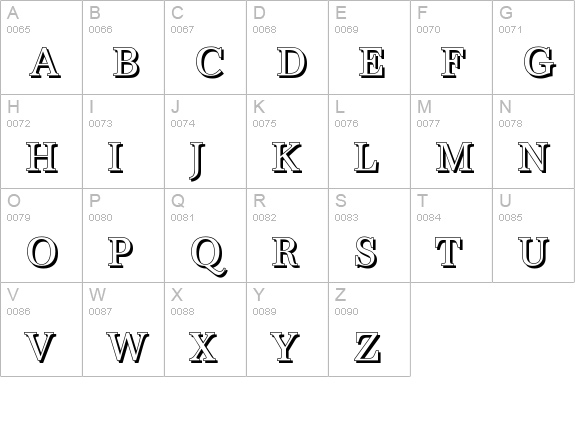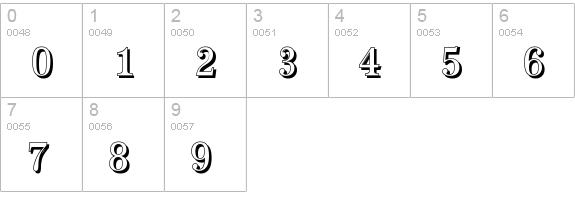
AntiquaSh-Cd-Regular is the standard, neutral variant in the AntiquaSh typeface family \xE2\x80\x94 well suited to general body text, paragraphs, and standard typographic work.
AntiquaSh-Cd-Regular is a classic and elegant font that exudes sophistication and timelessness. With its clean lines and balanced proportions, this font is perfect for a wide range of design projects, from elegant invitations to professional documents. Its graceful serifs and timeless appeal make it a versatile choice for both print and digital applications. Best of all, AntiquaSh-Cd-Regular is available for free download at FontsMarket.com. Whether you're a designer looking for a new go-to font or a hobbyist looking to enhance your projects, this font is a fantastic addition to your collection. Don't miss out on the opportunity to elevate your designs with this beautiful and freely available typeface. Download AntiquaSh-Cd-Regular today and add a touch of sophistication to your next project.